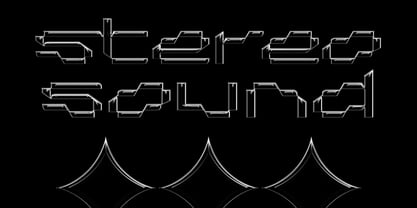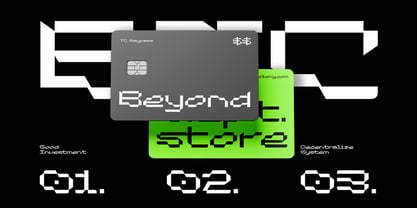
Baypass
by Type Colony
The Baypass Font Family was designed by Aliv Pandu, Hasto Nugroho and published by Type Colony. Baypass contains 1 styles.
Baypass is a striking, cyberpunk-inspired font that enhances your visuals with a futuristic aesthetic. Featuring sharp letterforms and high-tech details, it is the ideal choice for projects that require a sense of innovation, speed, and digital energy. Whether you're designing sci-fi posters, gaming interfaces, tech branding, or robotic design elements, Baypass provides a distinctive edge that captures attention instantly. Stand out in the digital age with this unique typeface and elevate your creativity into the future.
Designers: Aliv Pandu, Hasto Nugroho
Publisher: Type Colony
Foundry: Type Colony
Design Owner: Type Colony
Baypass